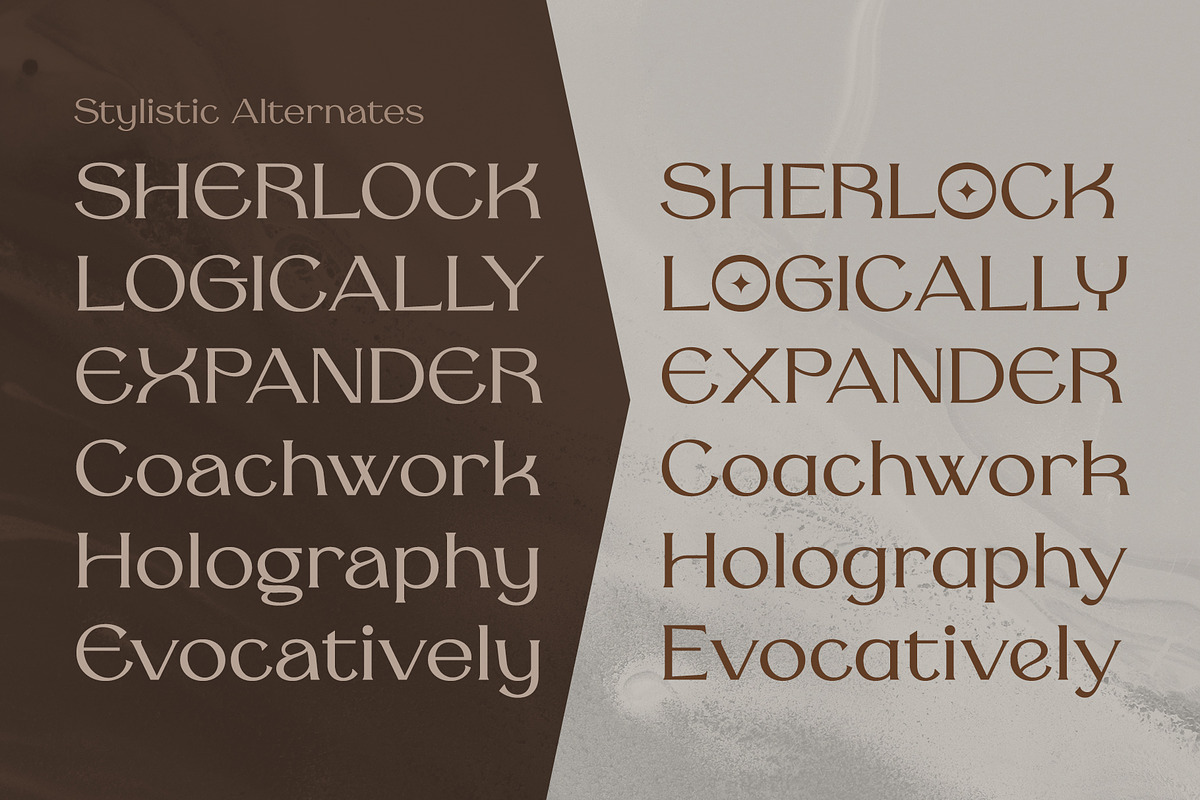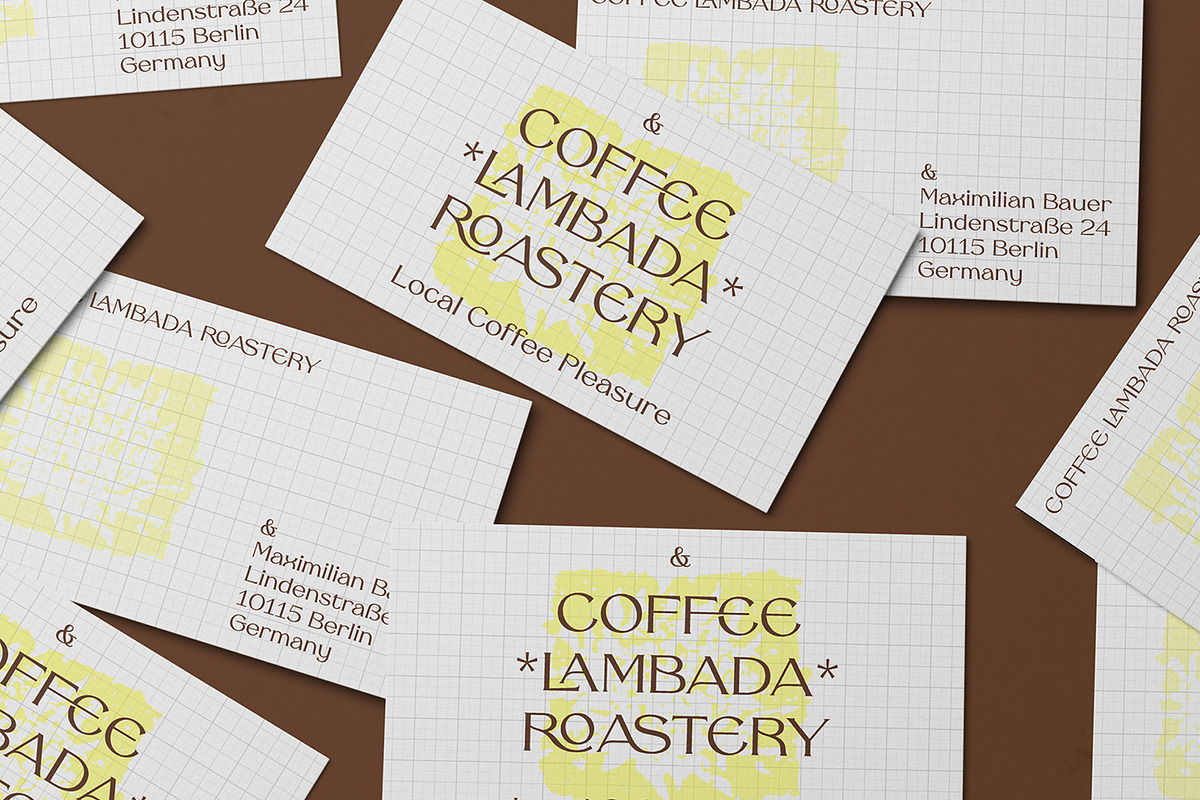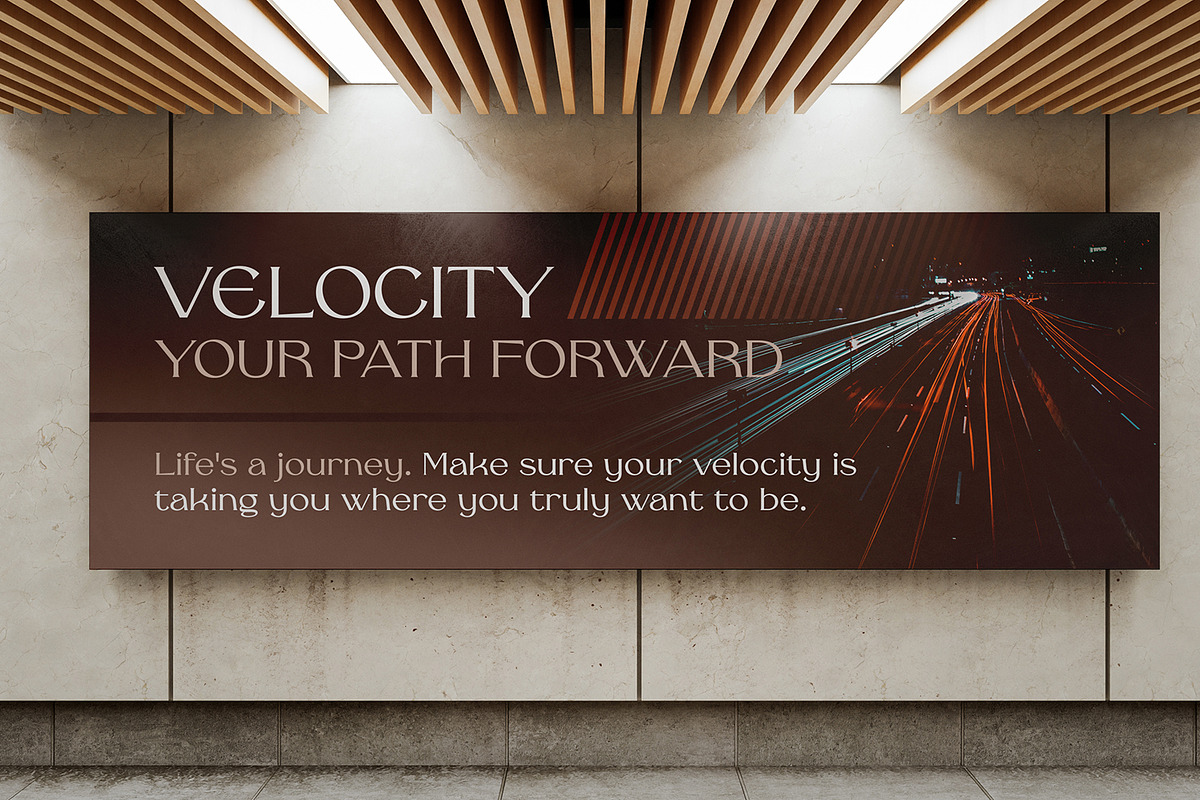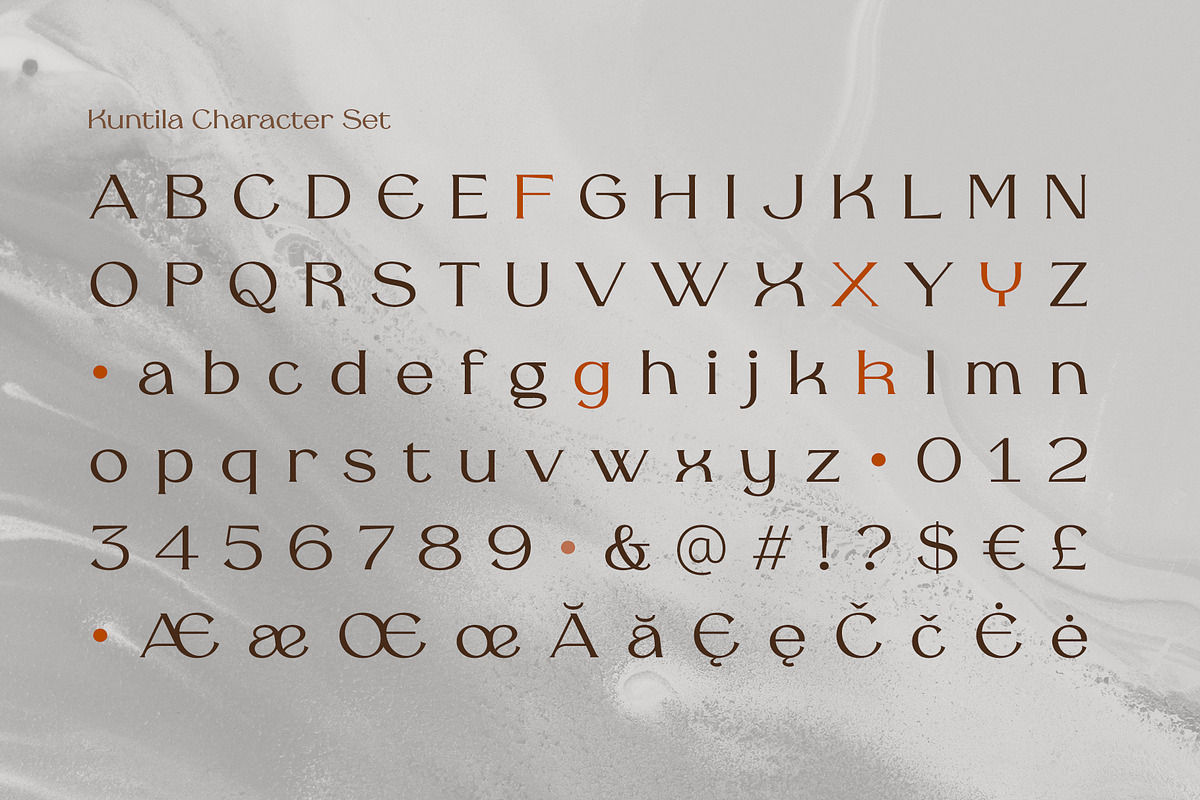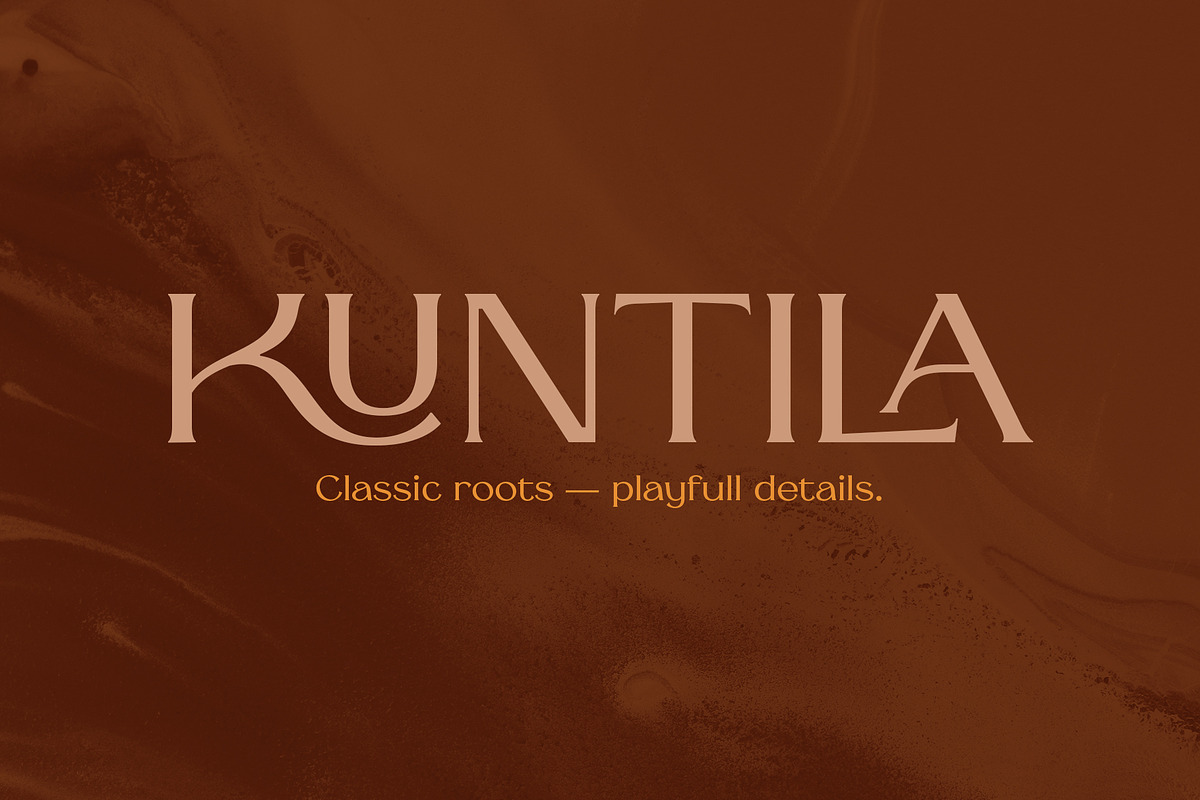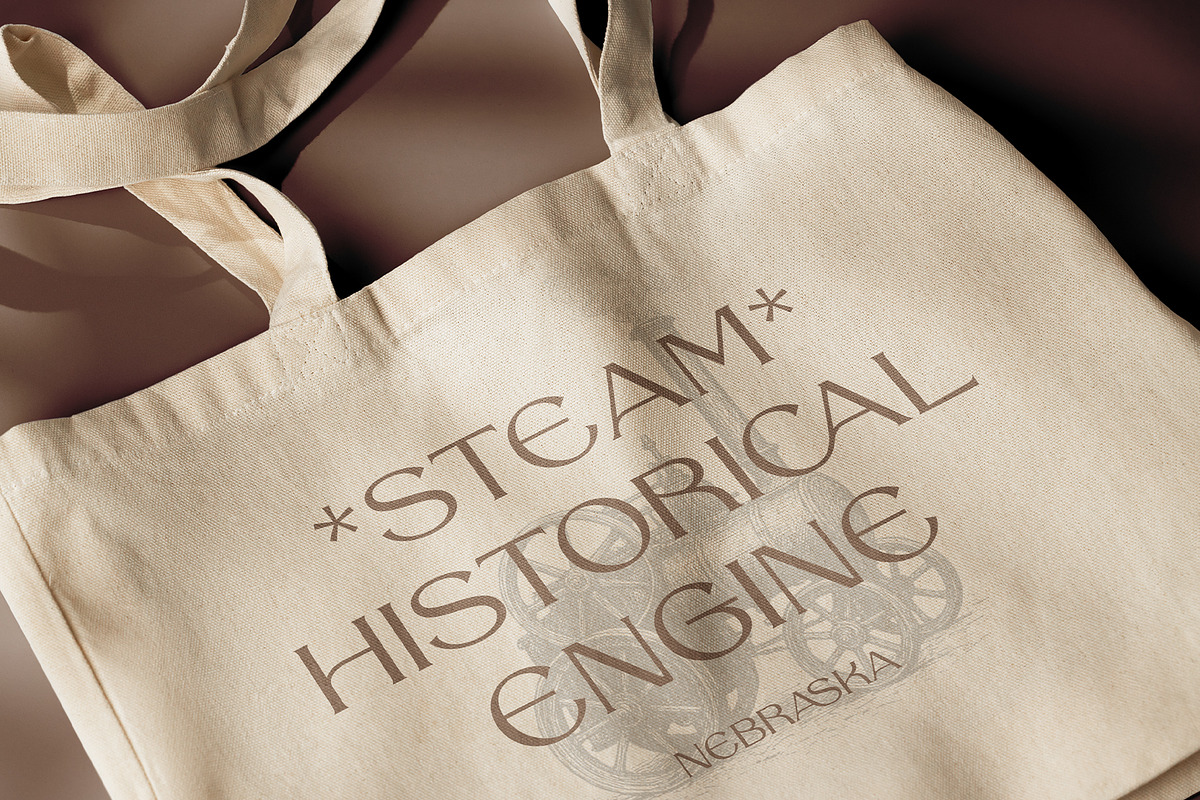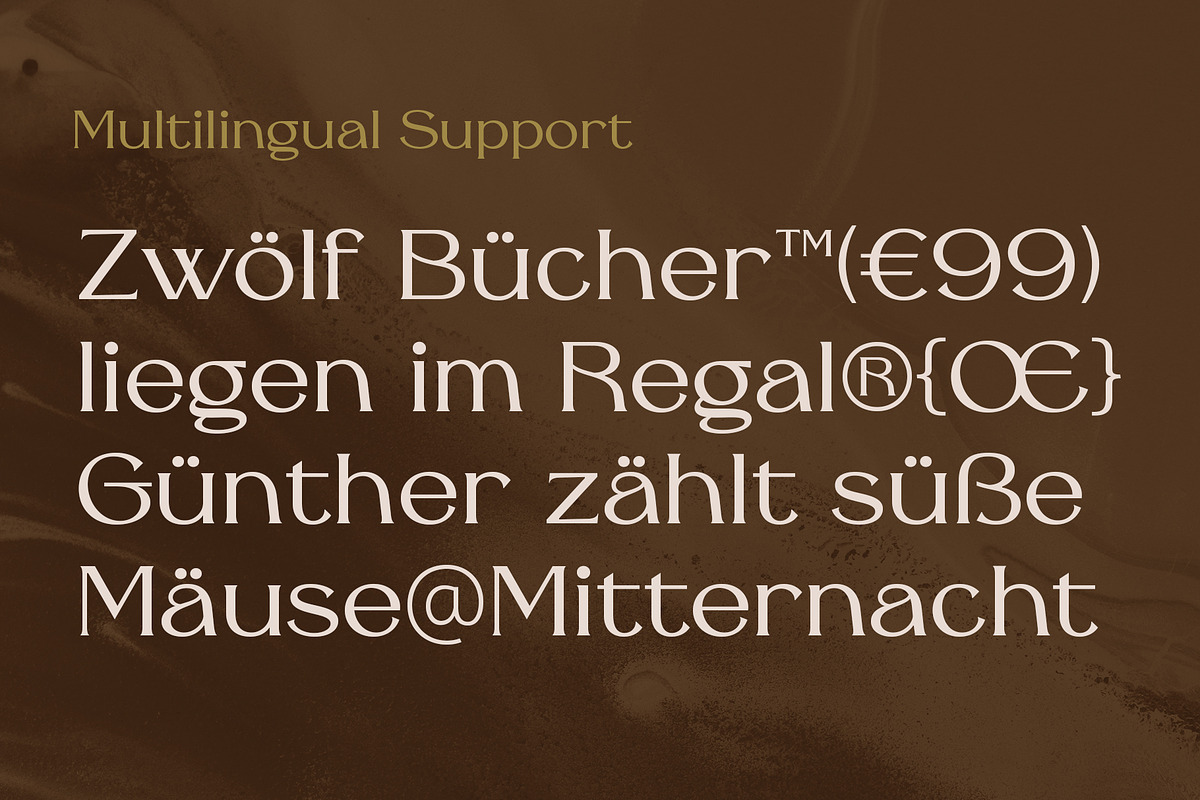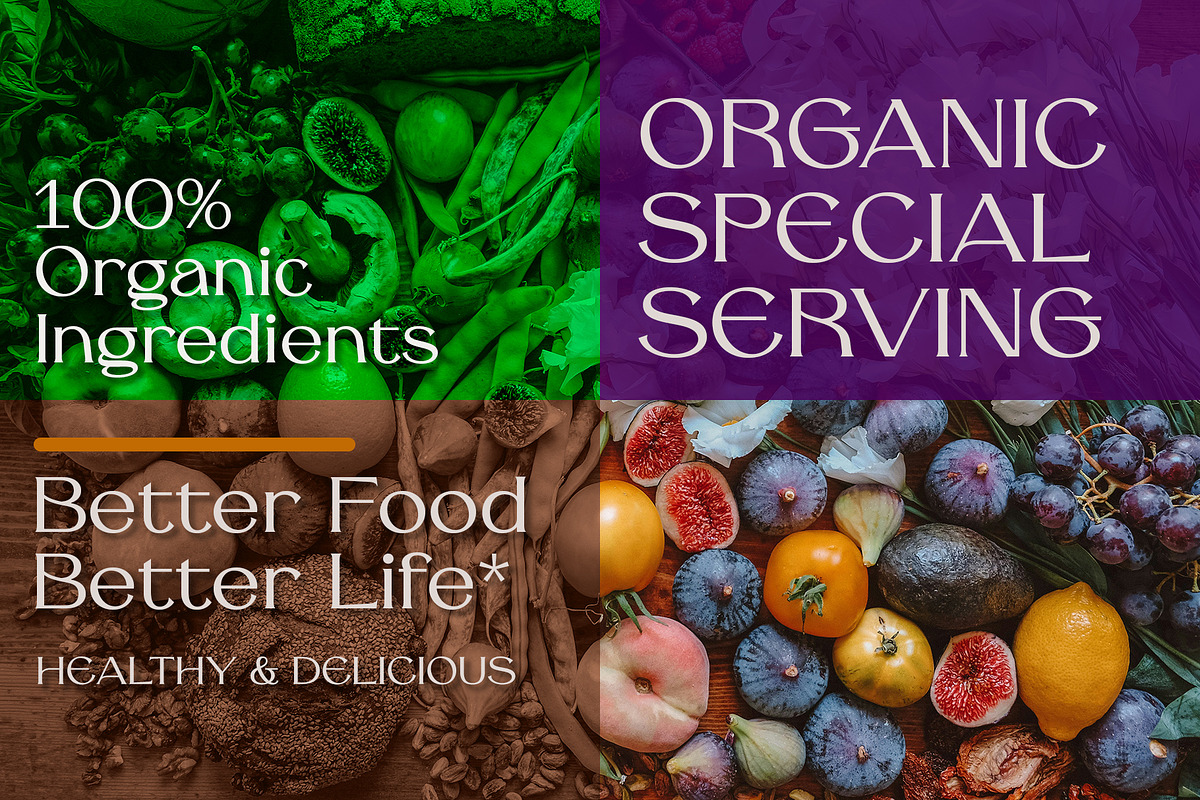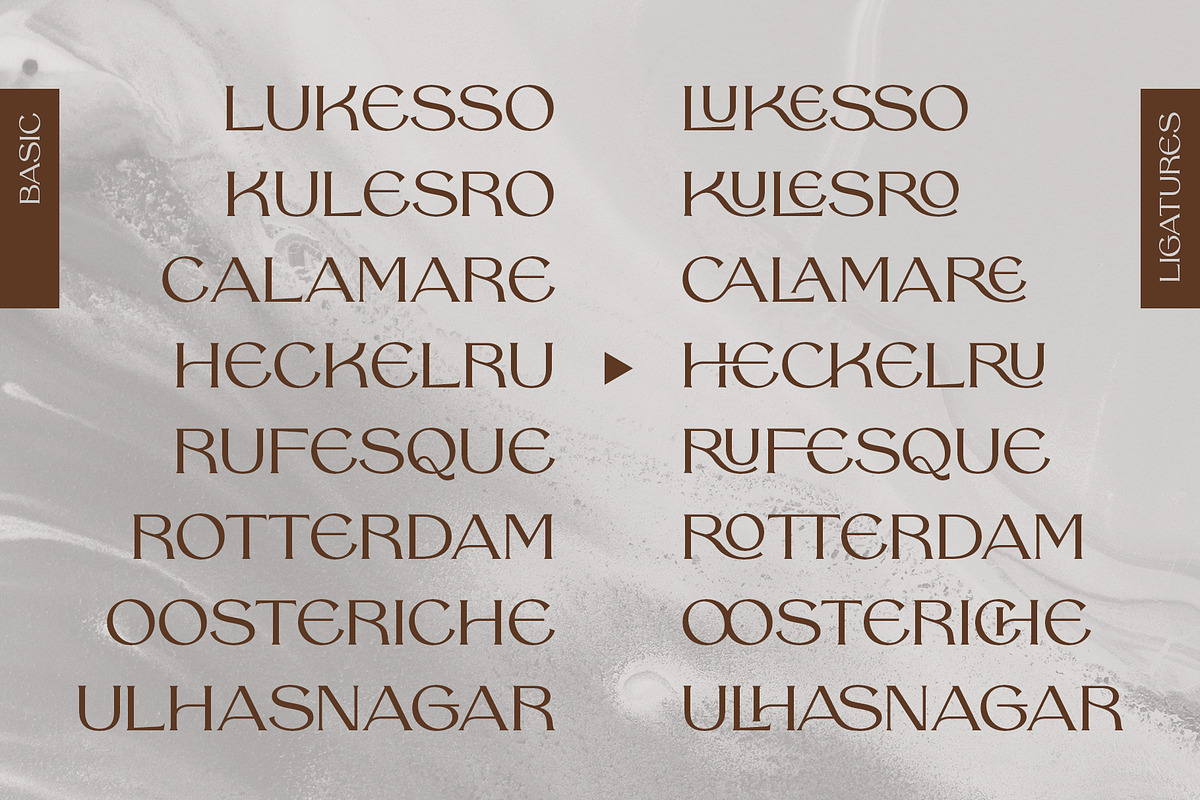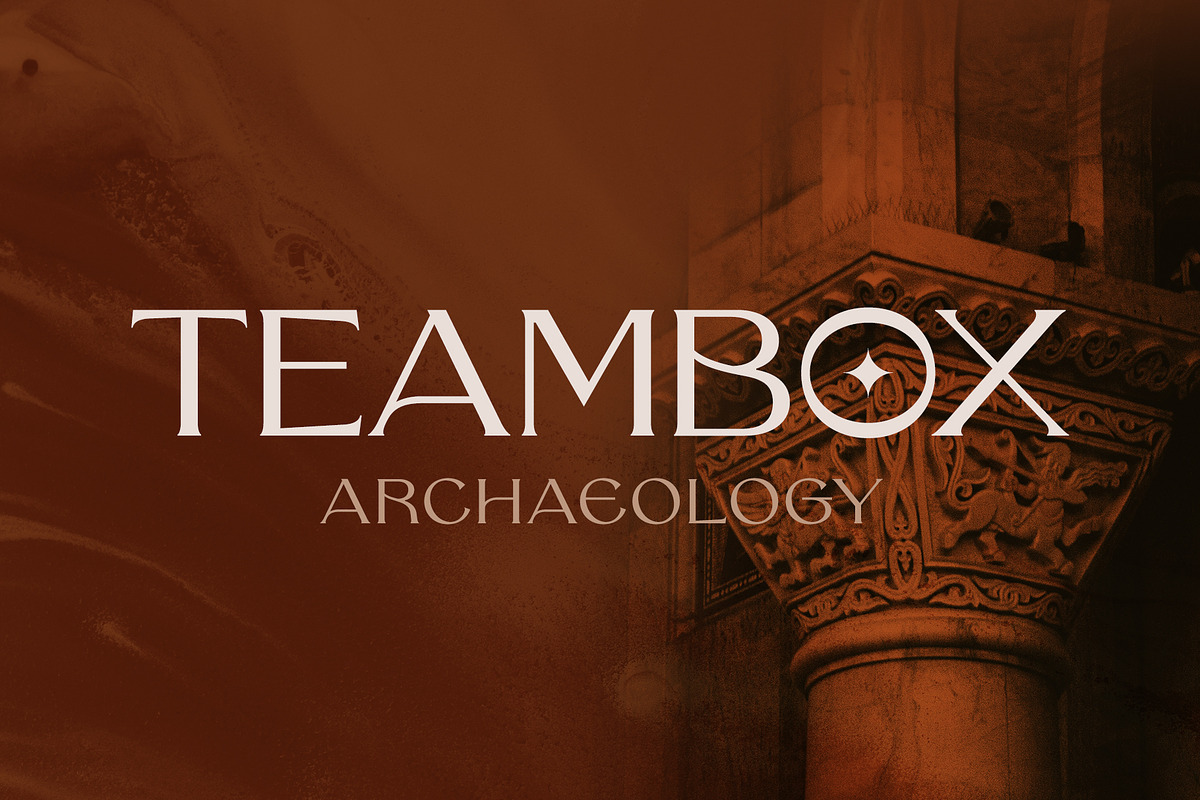
Kuntila
Kuntila Font—a serif with a twist. Classic at first glance, but take a closer look and you’ll find playful curves and unexpected shapes that bring words to life. Whether you’re designing a stylish magazine cover, a bold poster, or a unique brand identity, Kuntila makes your message stand out with confidence and charm.
With Regular and Italic styles, this typeface is ready to add elegance, personality, and a touch of artistic mischief to your next project.